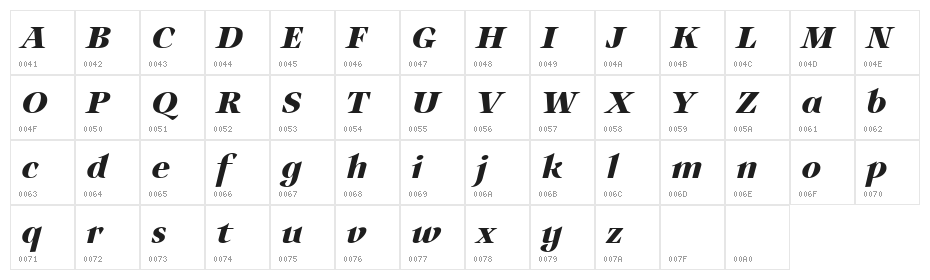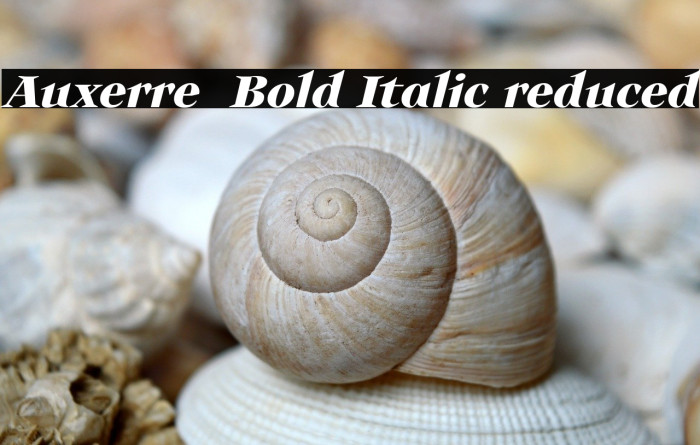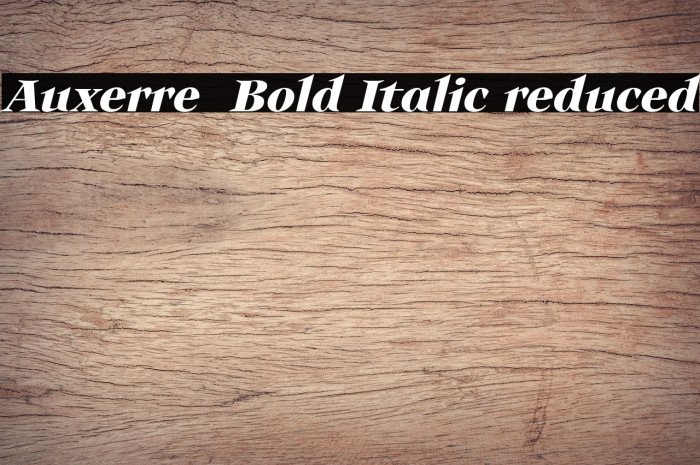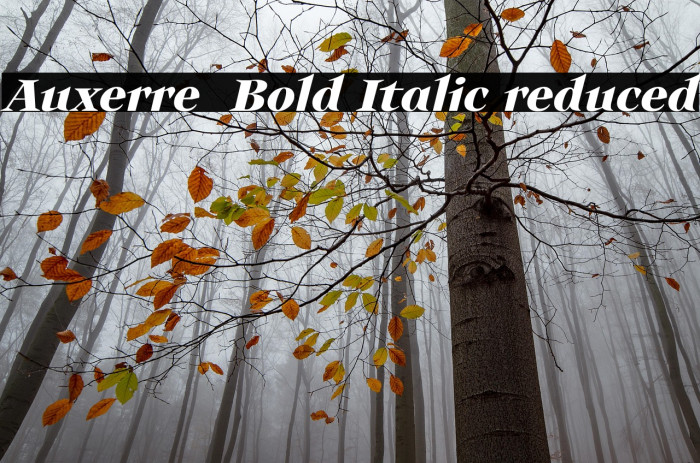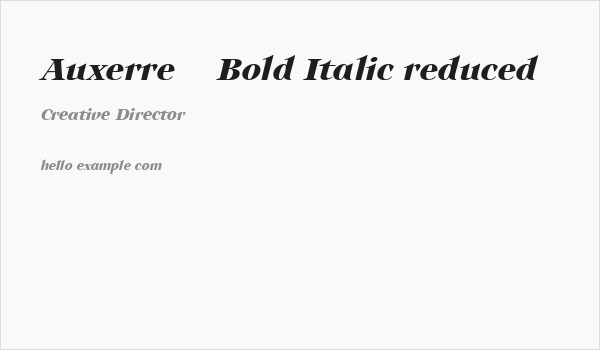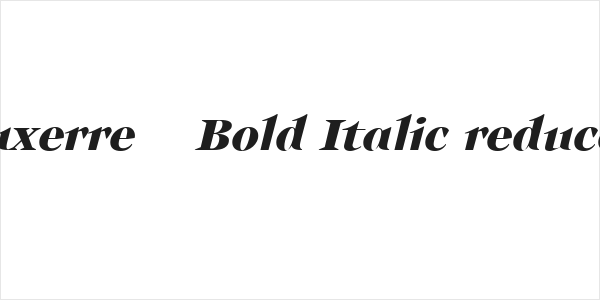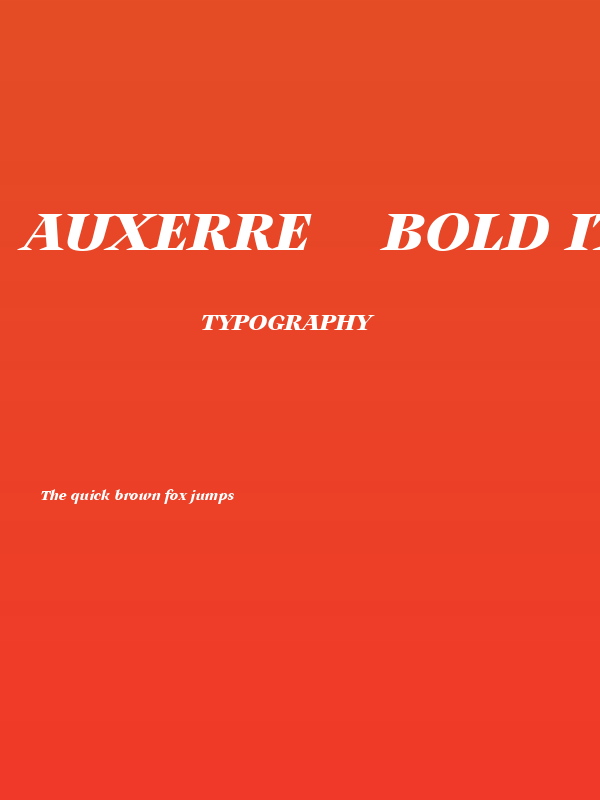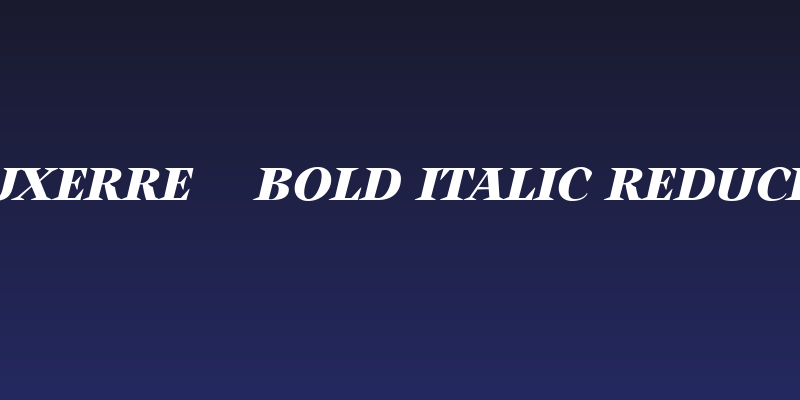
Auxerre 76 Bold Italic reduced Font
Auxerre 76 Bold Italic reduced Description
This font exhibits a bold and italicized style, characterized by its strong and dynamic presence. The letters are slanted, giving a sense of motion and elegance. The strokes are thick, providing a robust and confident appearance. The serifs are pronounced, adding a classic touch to the overall design. The uppercase and lowercase letters maintain a consistent style, ensuring readability and aesthetic harmony. The numbers and special characters are designed to match the bold and italicized theme, making them suitable for various applications where emphasis is needed.